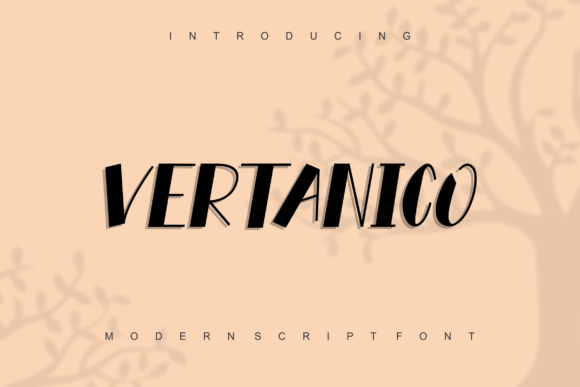
Venture into the digital realm with Vertanico, a font crafted to command attention and leave an indelible mark. Experience the raw power of a typeface designed explicitly for tech logos, esports, and the boundless expanse of branding possibilities. Bold, authentic, and undeniably striking, Vertanico is the visual symphony that will elevate your brand to new heights.
Step into a world where creativity knows no bounds. Unleash your imagination and harness the energy of Vertanico. Its captivating strokes dance across the screen, captivating audiences with their boldness and originality. Allow your brand to resonate with the vibrant spirit of the digital age.
With Vertanico, you hold the key to unlocking a treasure trove of visual expression. Its versatility knows no limits, effortlessly adapting to a multitude of contexts. Envision your logo adorned with the striking presence of Vertanico, commanding attention in the vast digital landscape. Picture your t-shirts emblazoned with its bold characters, turning heads wherever you go.
Prepare to be captivated by a font that embodies the essence of modernity and innovation. Vertanico is a testament to the transformative power of typography, capable of igniting emotions and leaving a lasting impression. Its every curve and angle is meticulously crafted to evoke a sense of connection, propelling your brand forward with unwavering momentum.